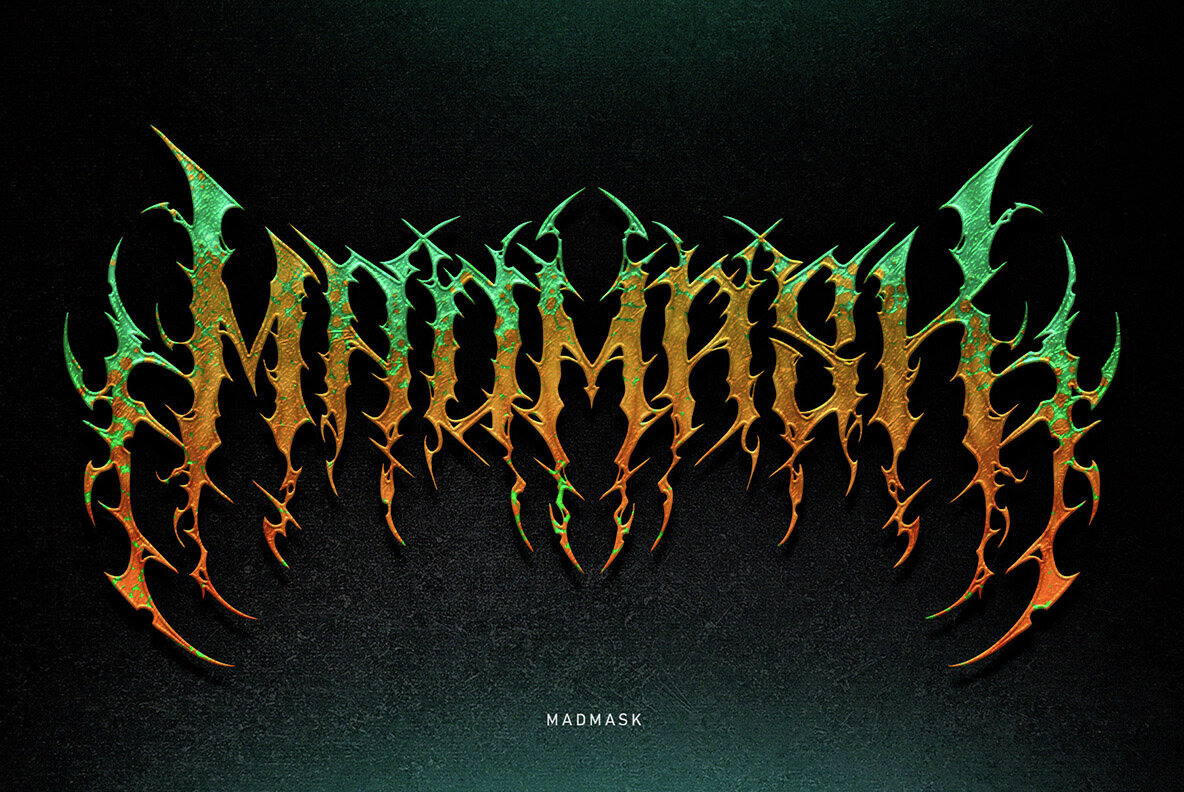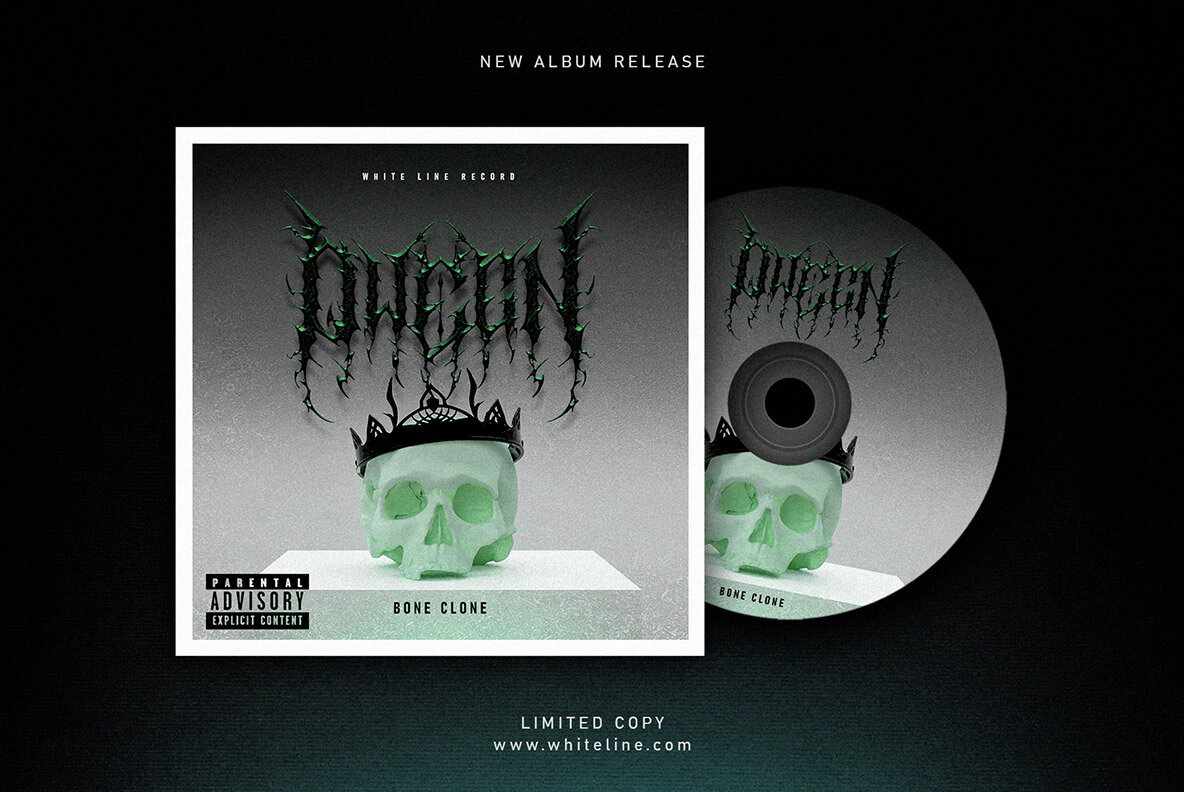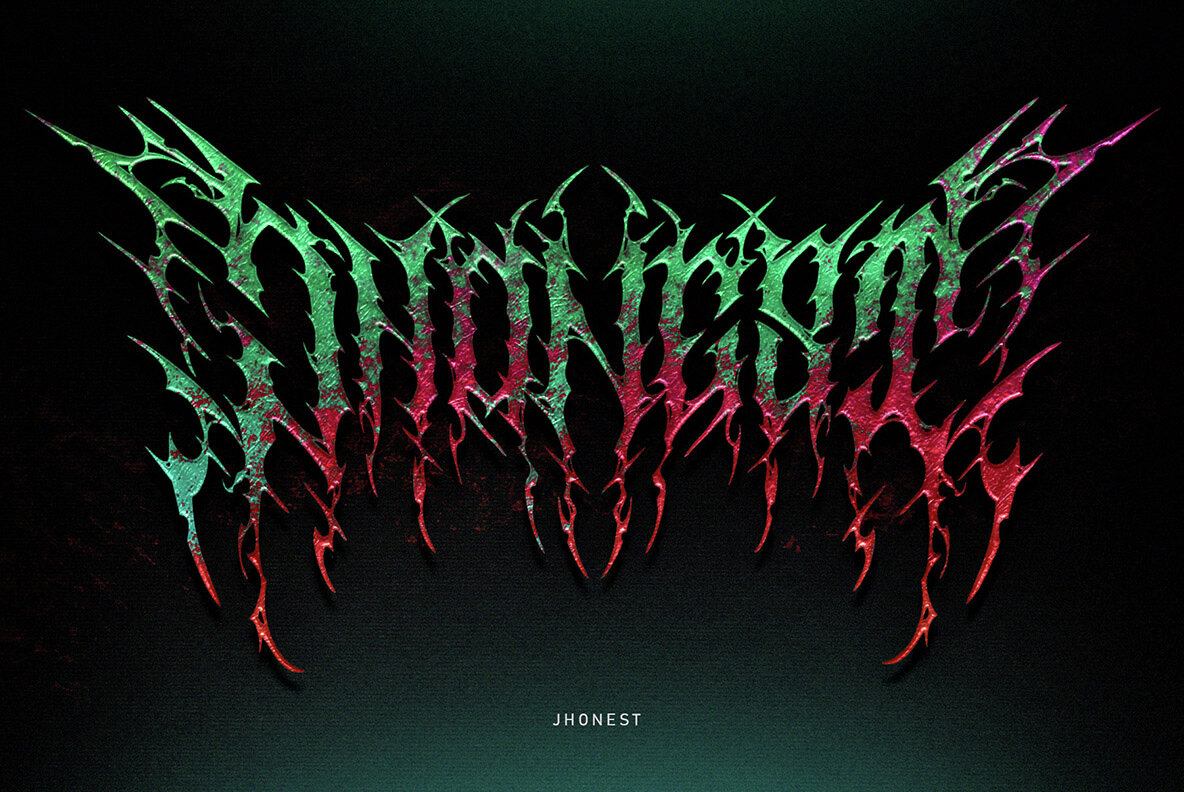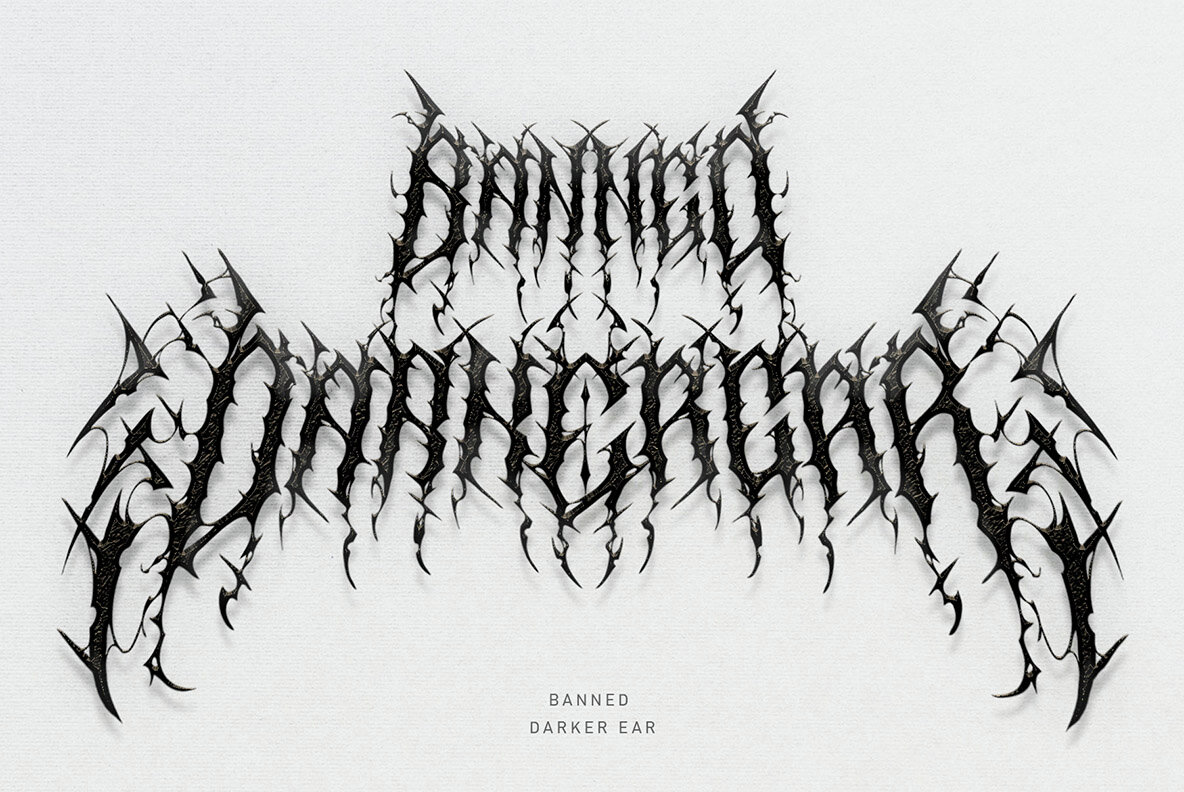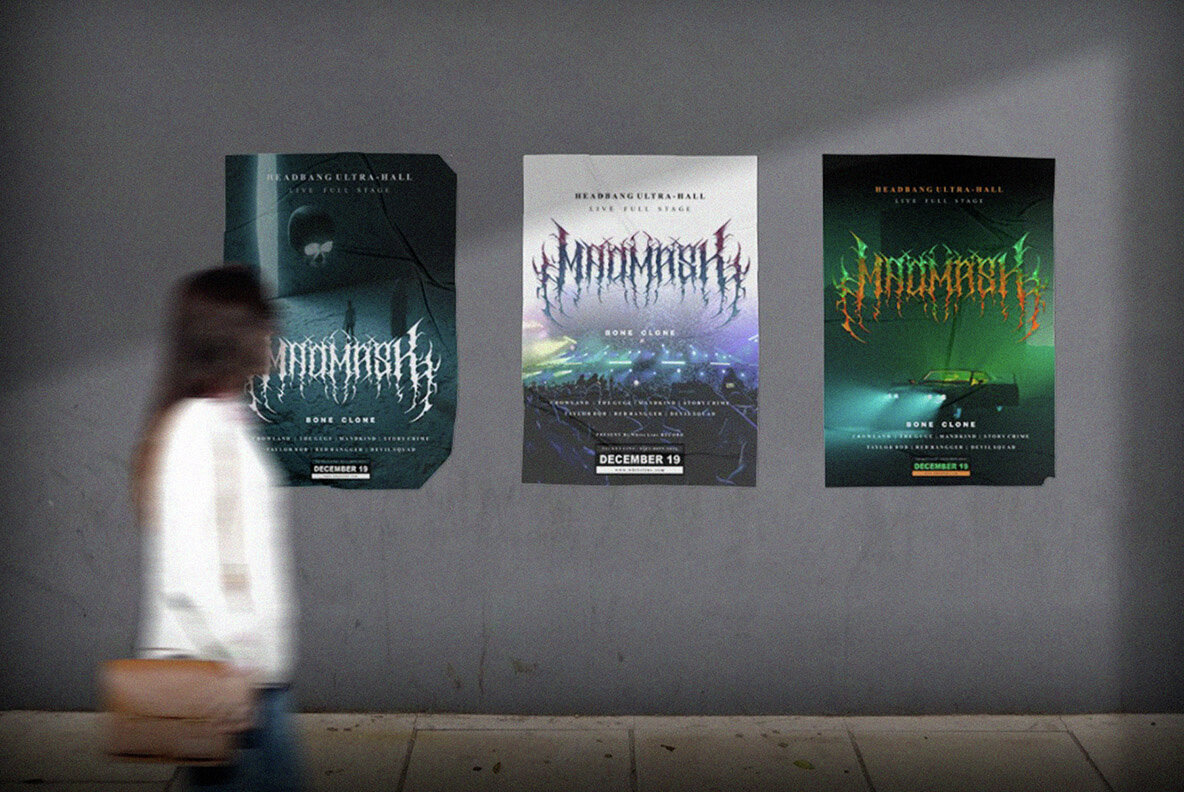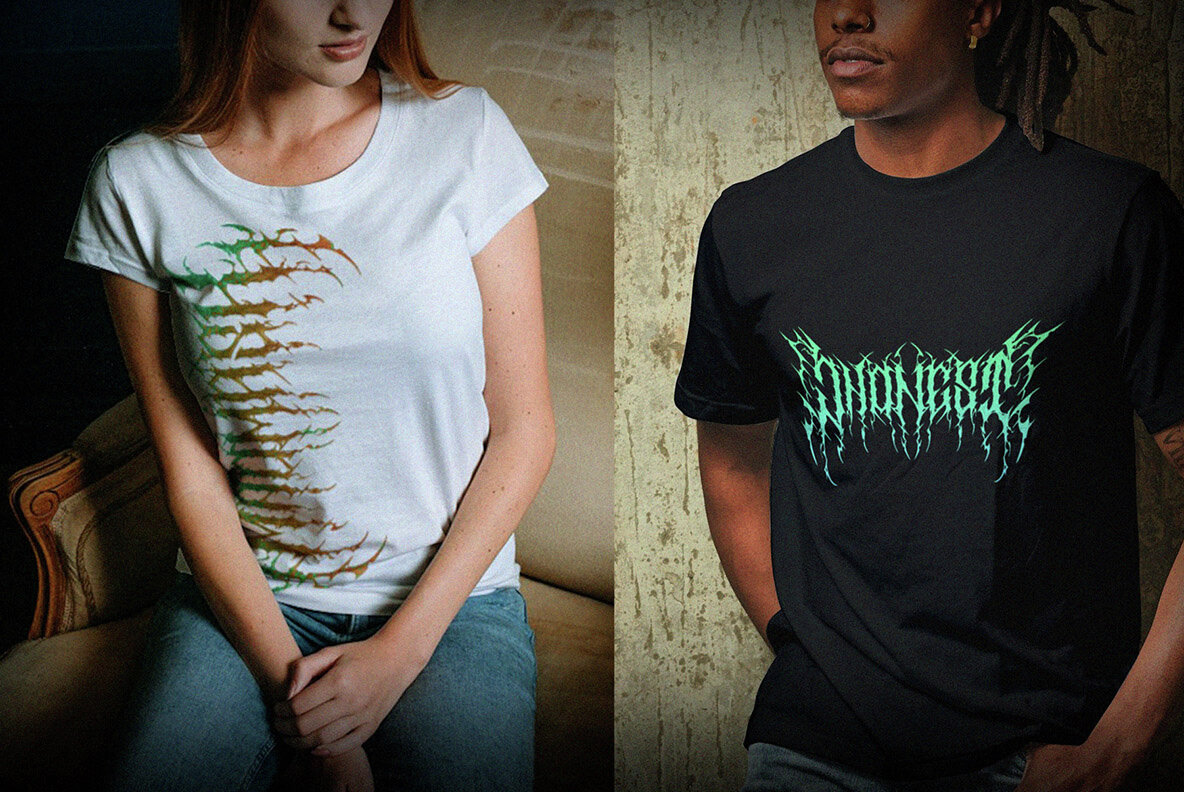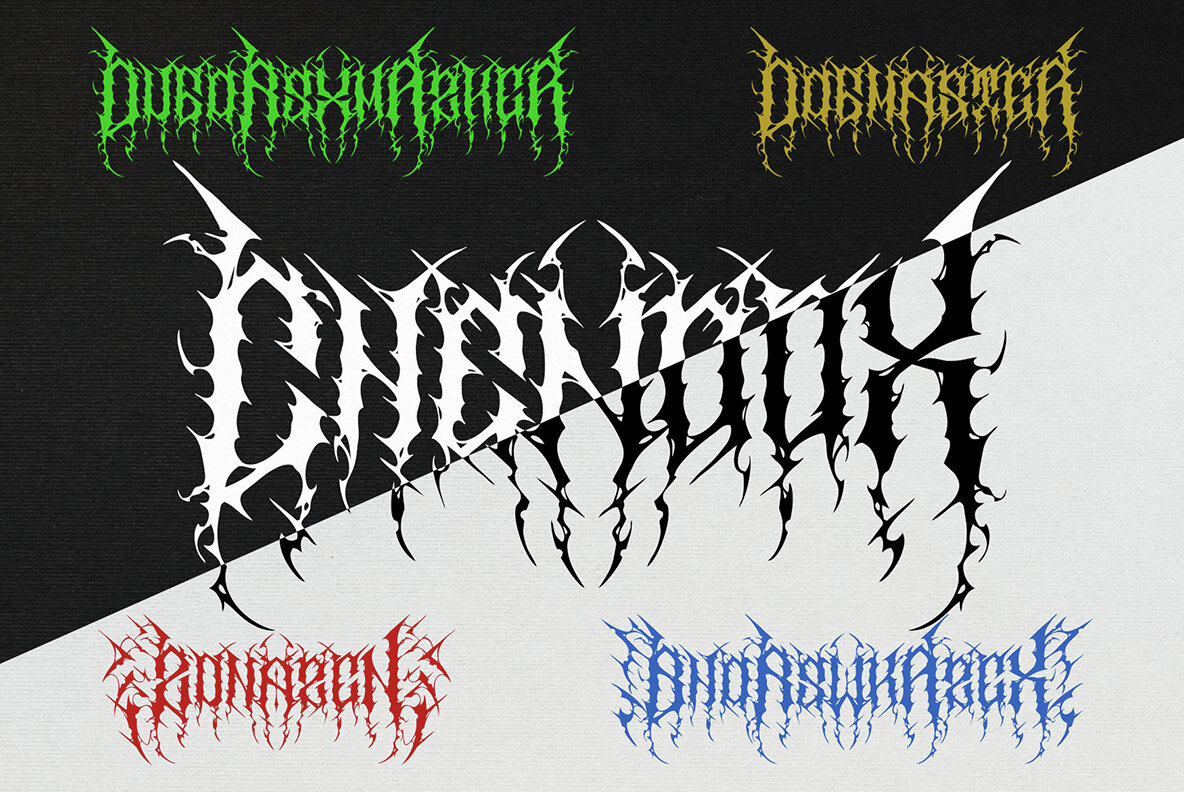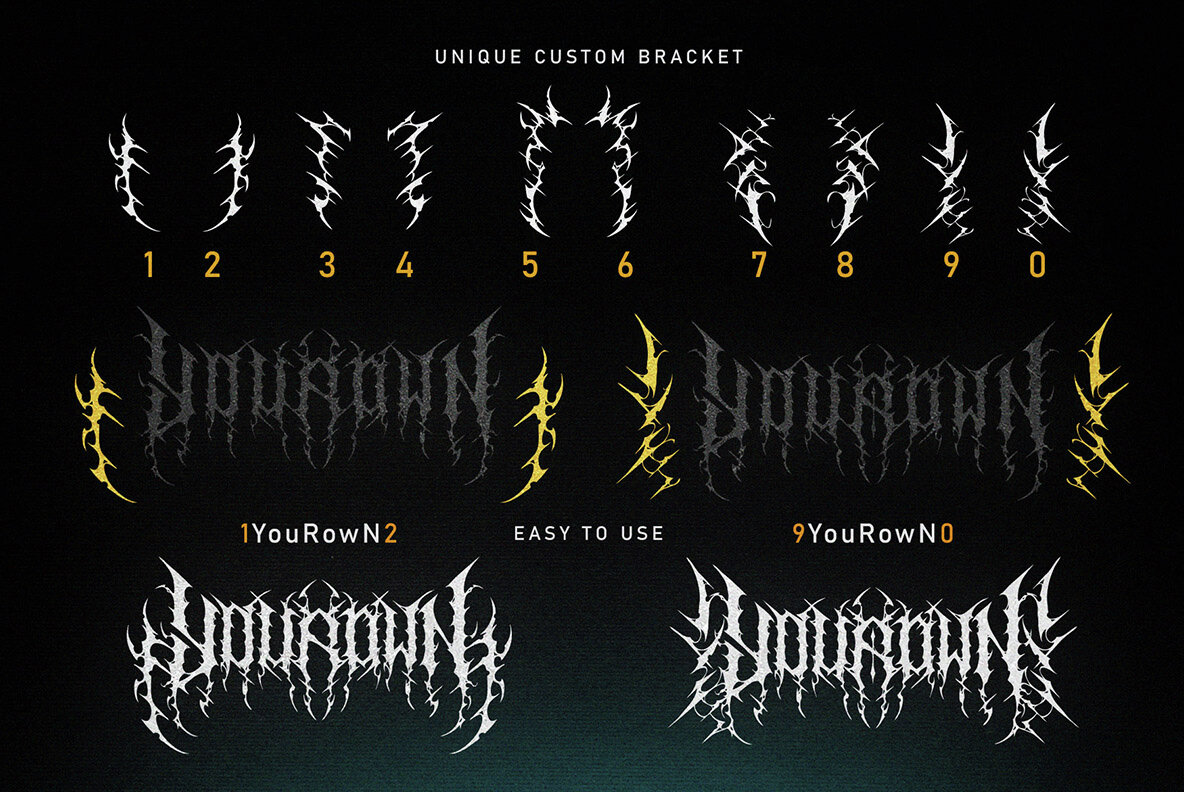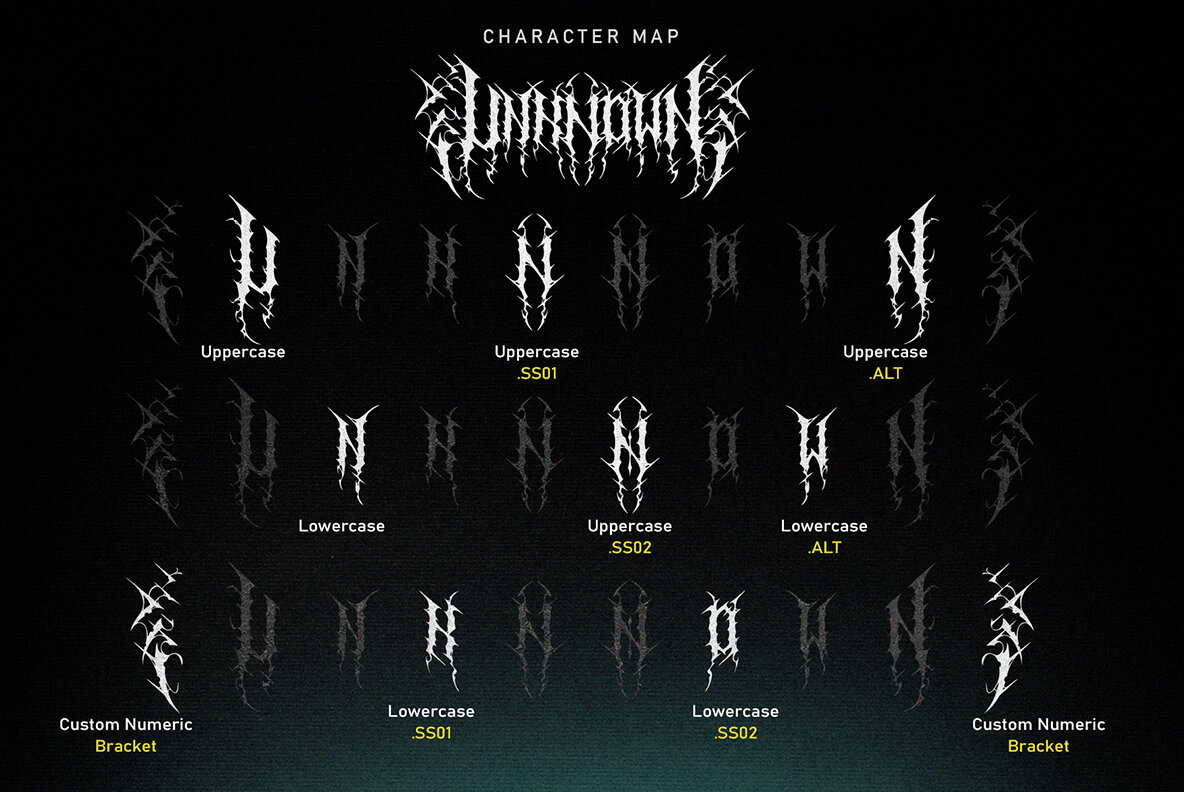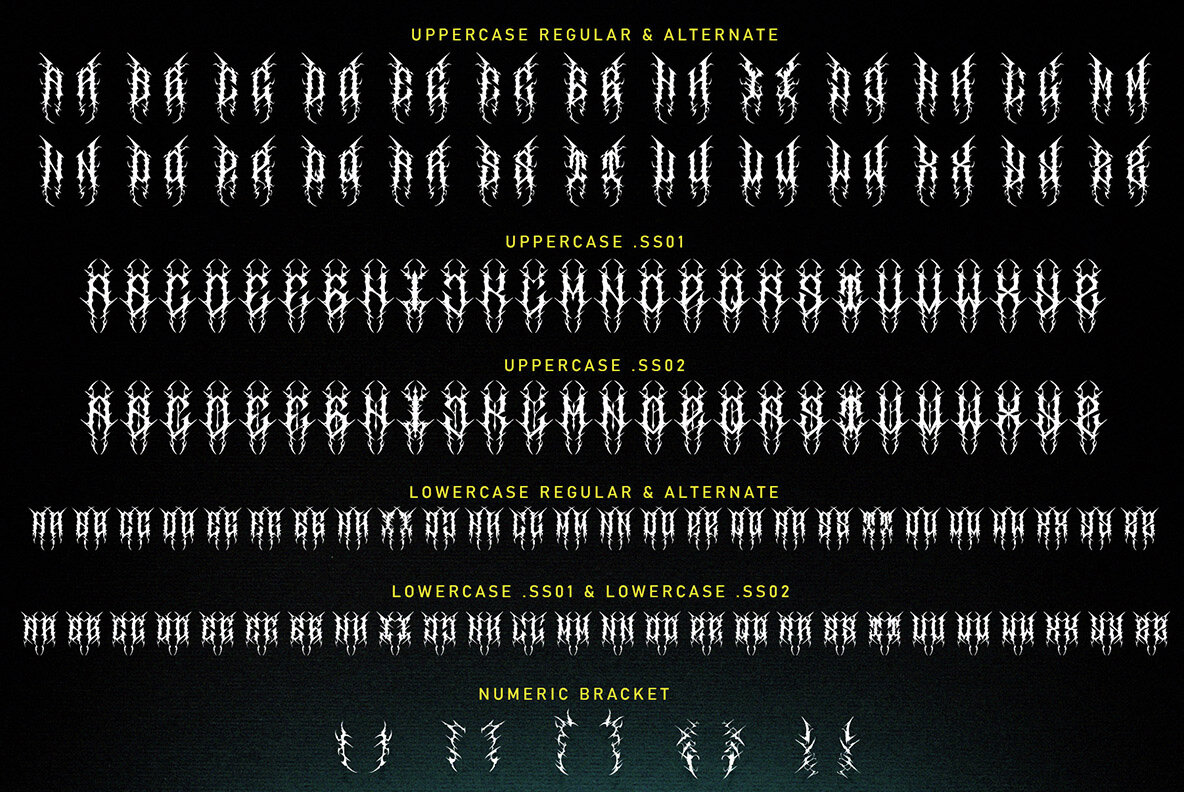
Meswady Font
Meswady Regular
Meswady is a unique and rare font that delivers a stunning impression of ferocity, perfect for those seeking a bold and aggressive design. Its metal-inspired style is ideal for a range of applications, from metal band logos to concert posters. Meswady's distinctive design and dramatic aesthetic make it a powerful choice for projects that require a touch of heavy metal. Recomended Software to use: